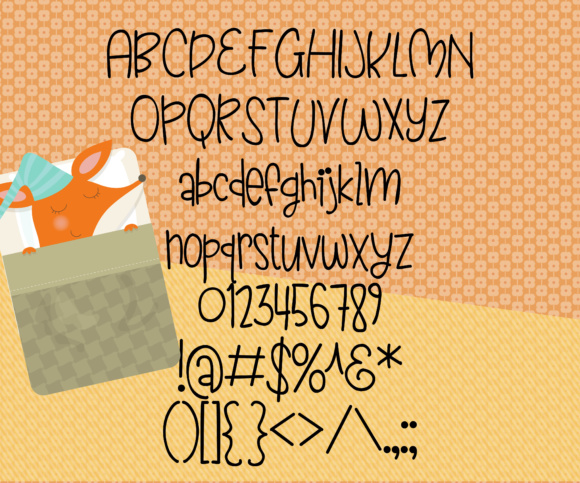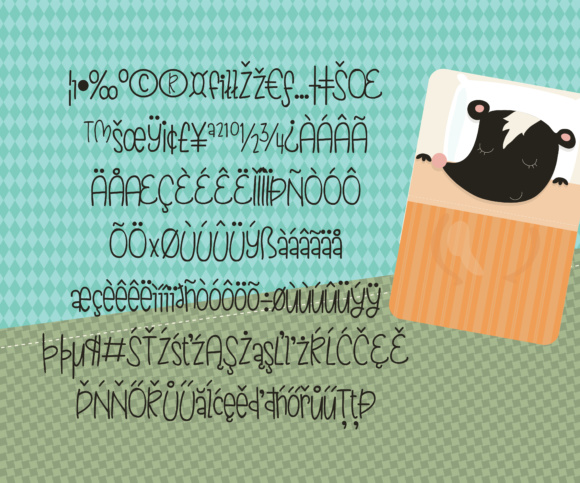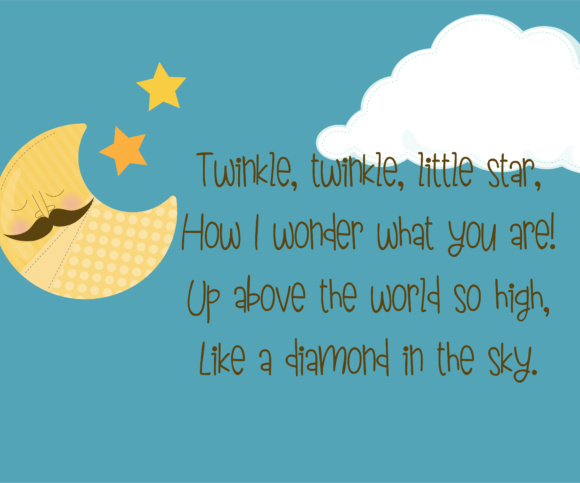
Beddie Bye Font
About Beddie Bye Font
Beddie Bye is a youthful, handwritten font that can add tons of whimsy and charm to any project type. This font has a bouncy appeal, and is highly legible so you can use it in body text as well as headlines.